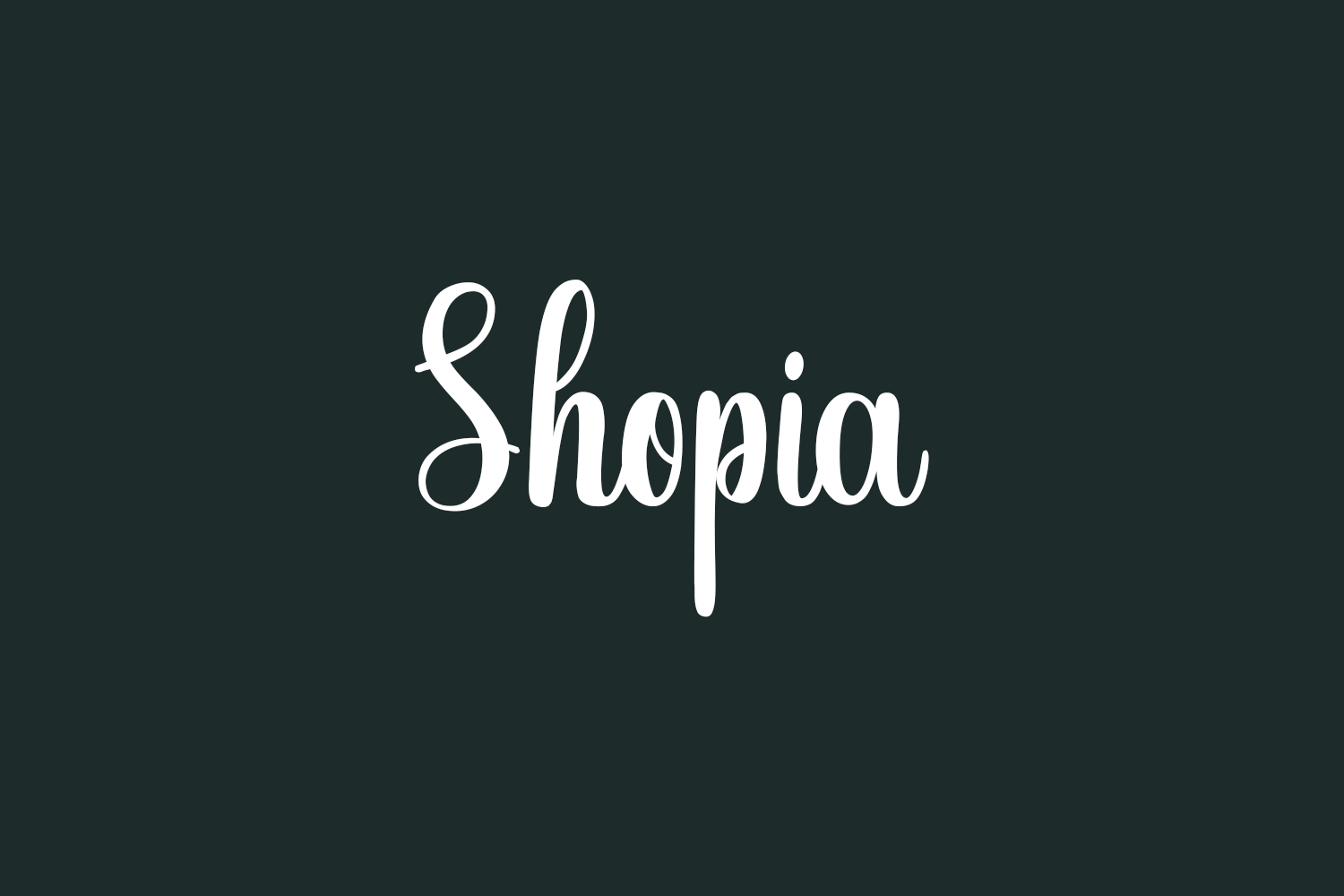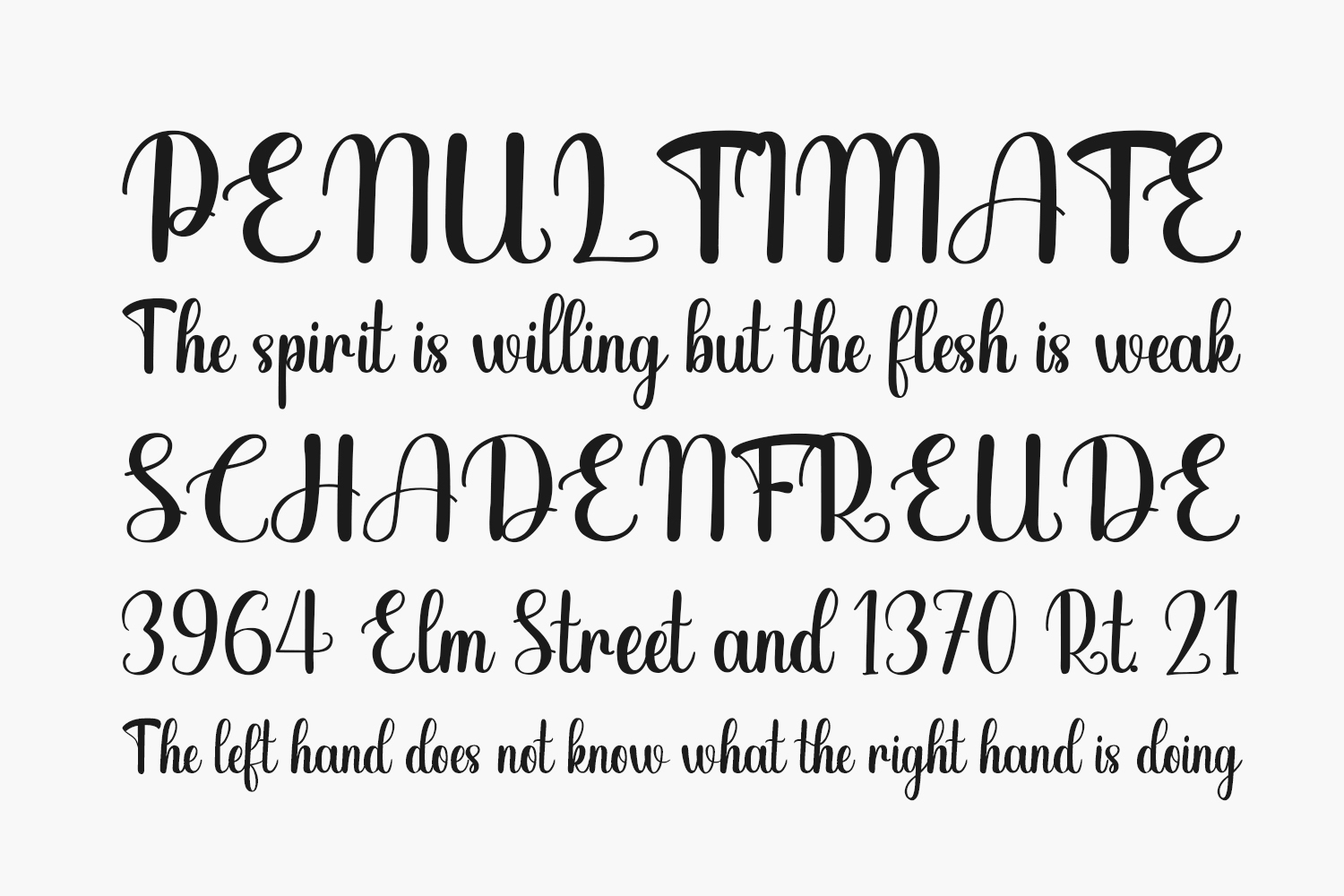
Shopia Free Font is a stylish handwritten font that inspires friendliness and elegance. It is perfect to use for any of your wonderful creations such as branding projects, logos, brochures, business cards, wedding invitations, and many others. Shopia Free Font was designed by Ikrar Bey Khubaib and is free for personal use only. Please purchase the full version for commercial use.
Designed by Ikrar Bey Khubaib